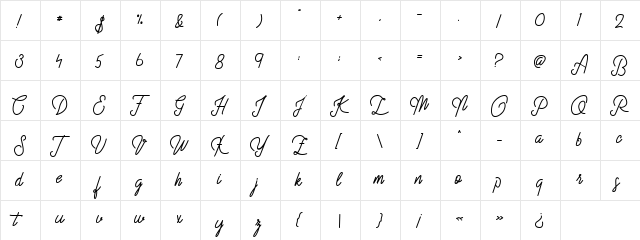
Struggle More Script
| Style | Script |
| Foundry | Lovepower Designs |
| Designer | Lovepower Designs |
Design Context for Struggle More Typeface
Struggle More brings a calligraphic fluidity to the page — its connecting strokes and expressive curves give it an unmistakably human quality.
Font Pairing: Combine Struggle More with a simple geometric sans for maximum contrast — the tension between flowing curves and clean structure is a classic typographic pairing.
Pro Tip: Use Struggle More for short runs of text — names, titles, or taglines. Extended body copy in script faces tires the eye quickly.